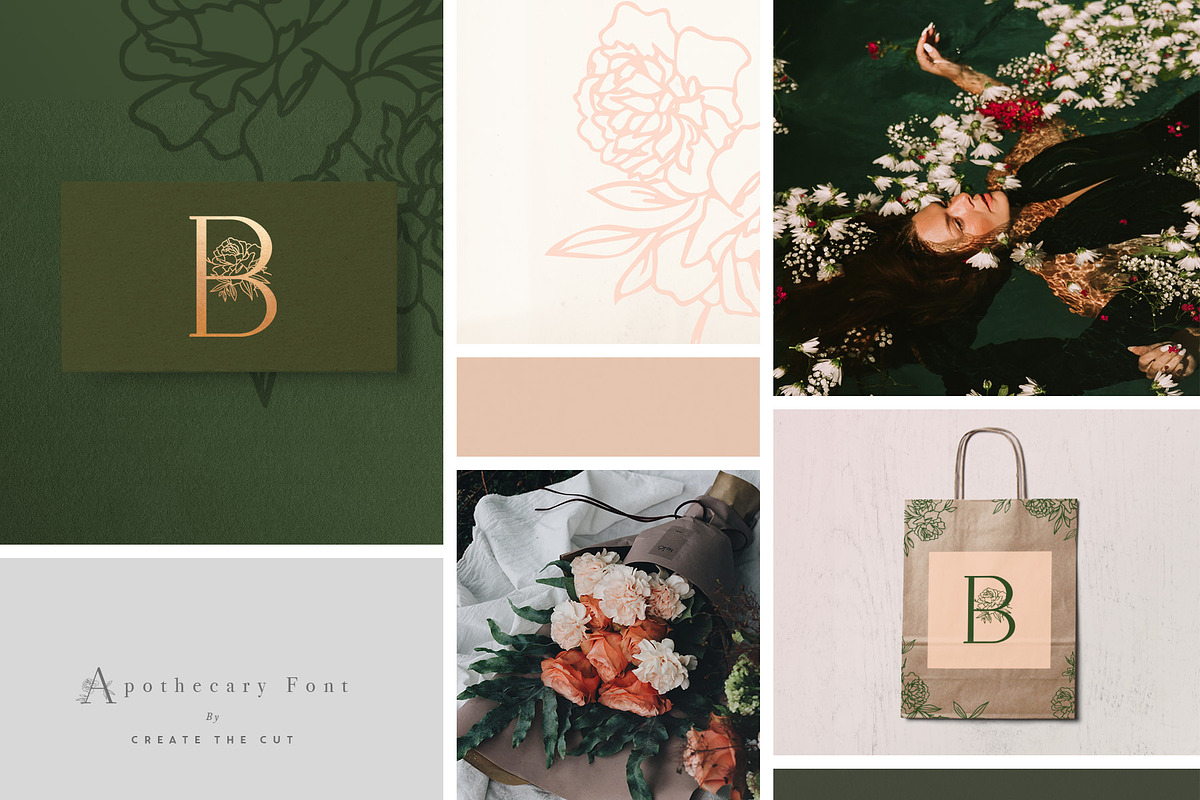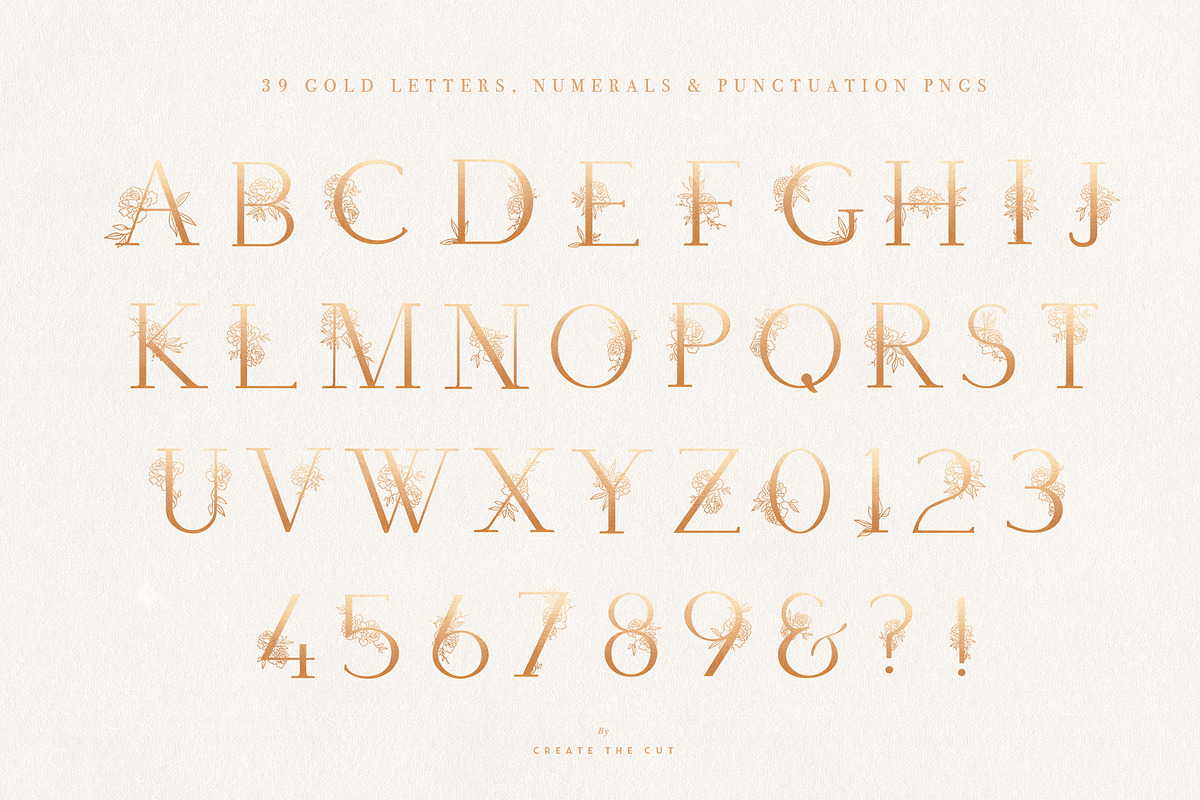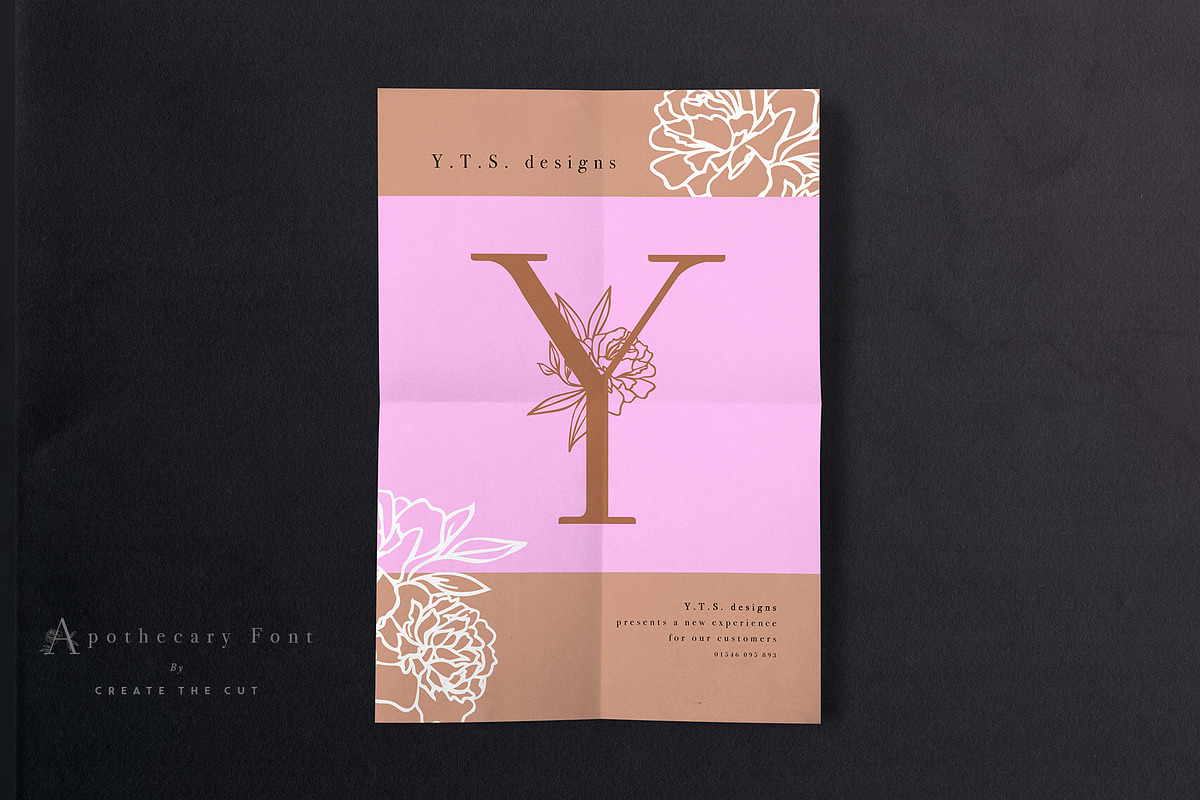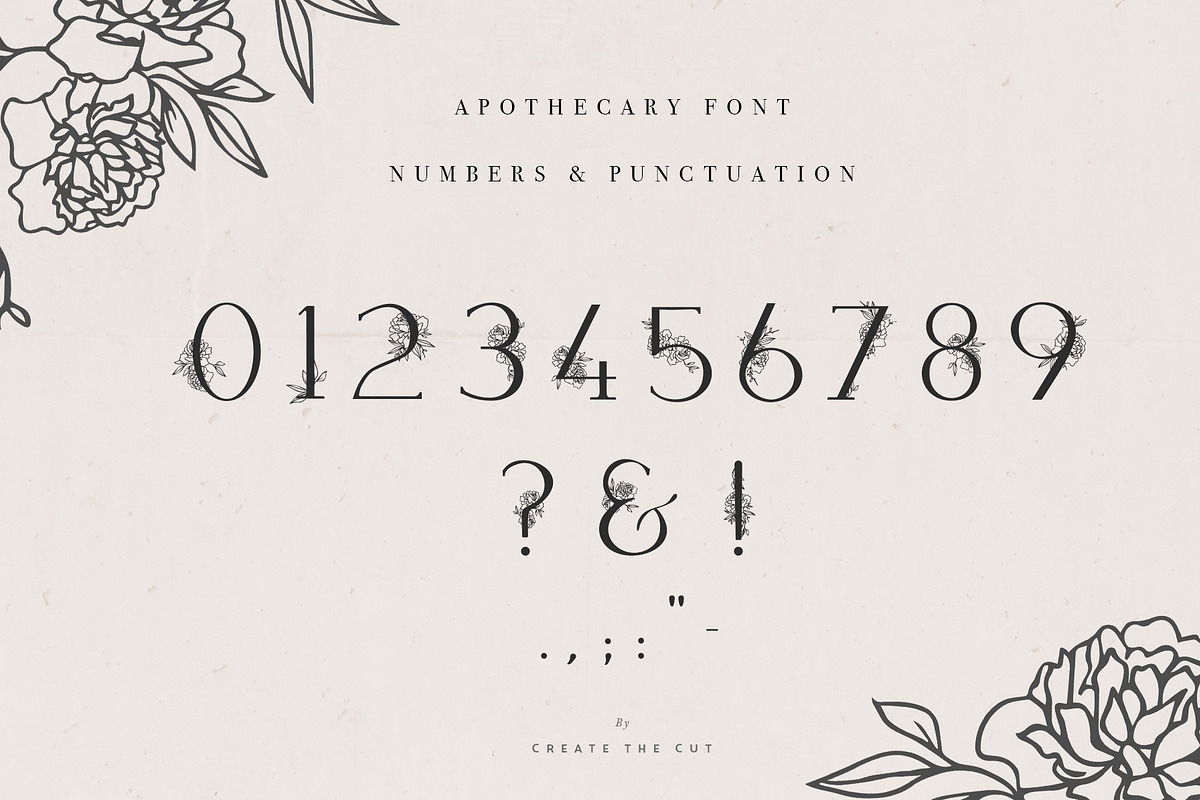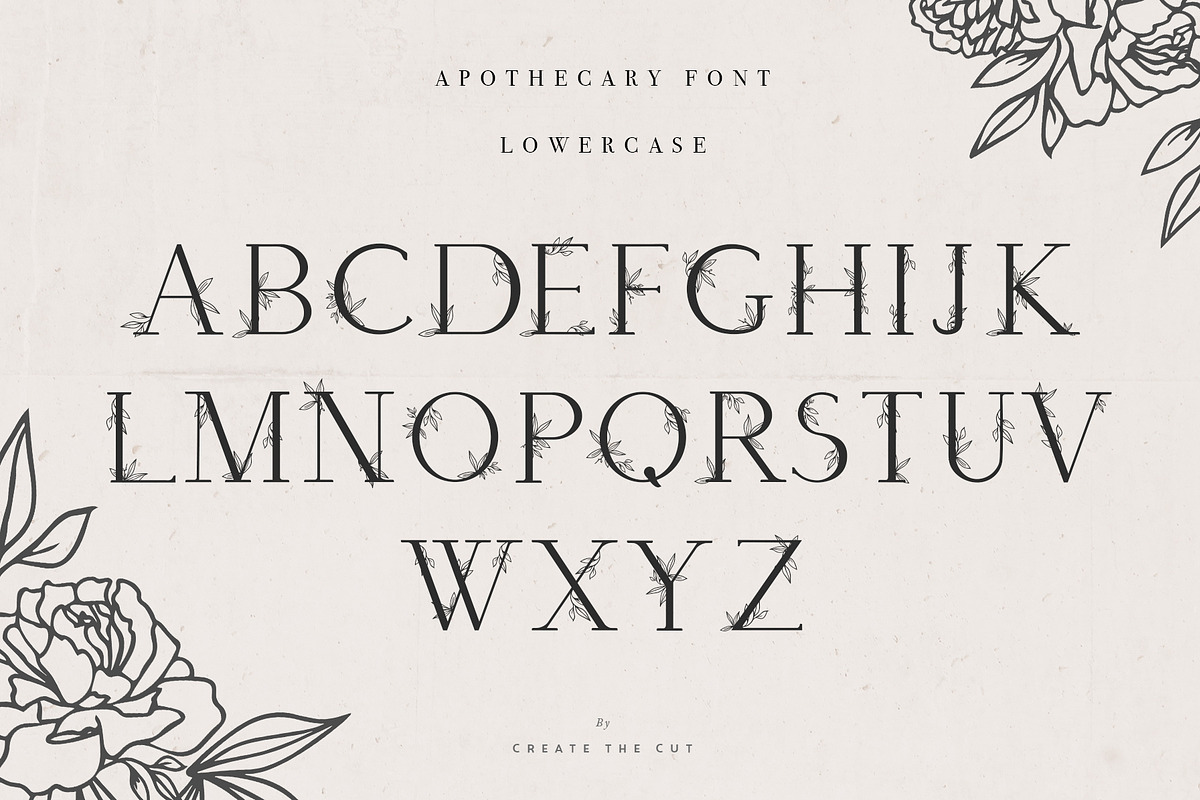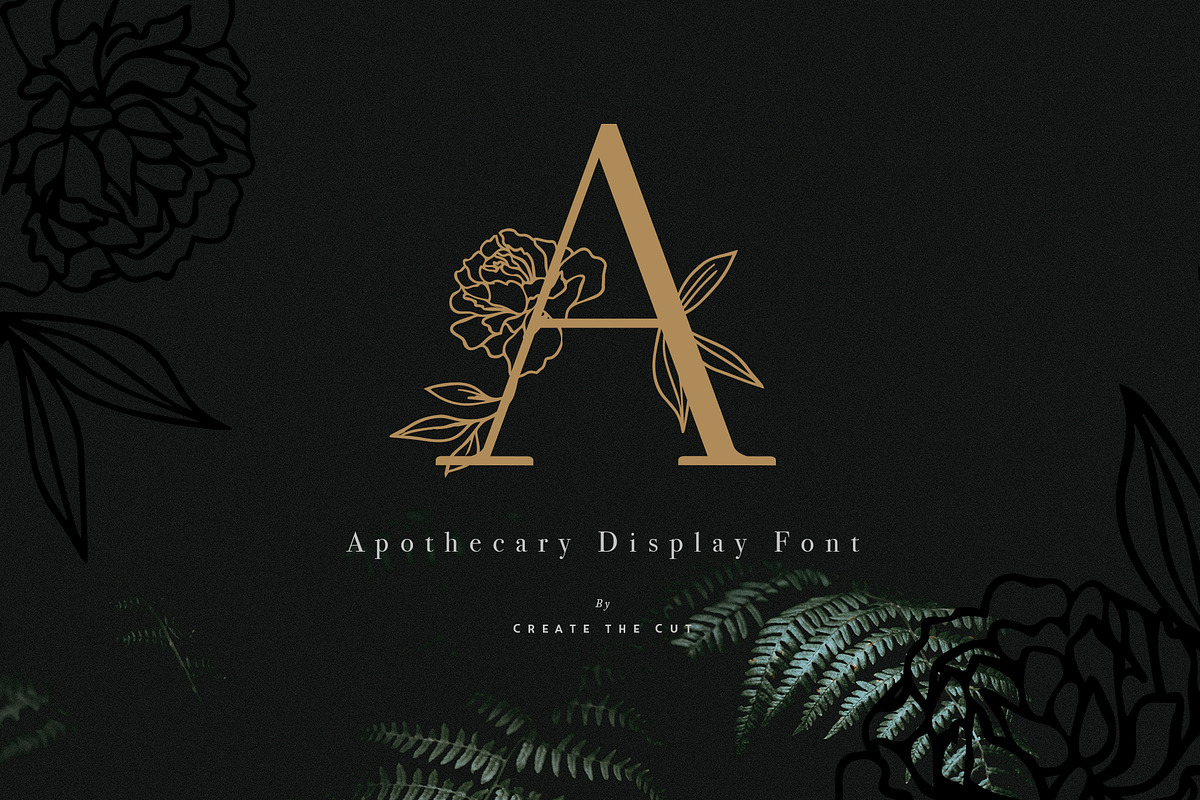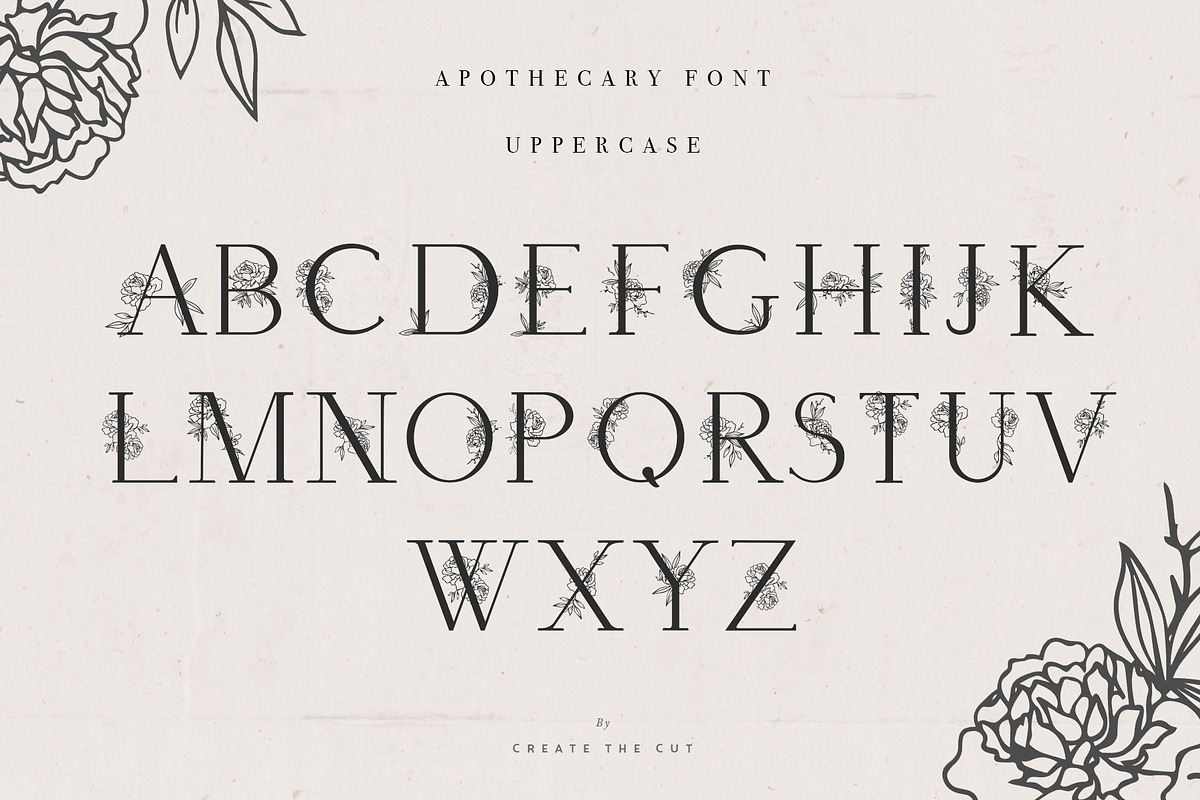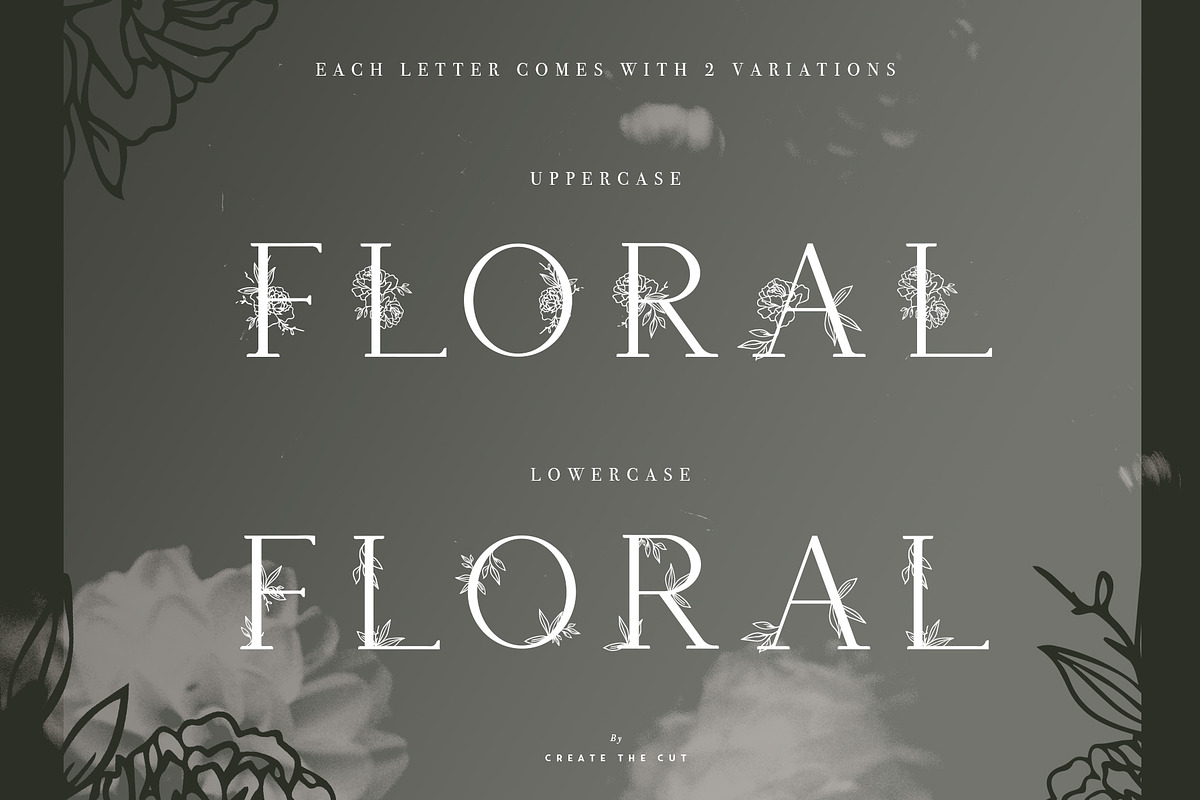
Apothecary Display Font
Apothecary – A modern botanical display font.
Inspired by the pharmacist of old's blend of botanical and chemical to create a remedy. We have blended our own love for fine typography and florals to create a remedy for any font lover who needs a little flair in their font library!
Apothecary is a brand new font hand crafted from the ground up. Not only is this a stylish all capitals display font but it also features original botanical line artwork creating a unique & sophisticated look with every press of the keyboard.